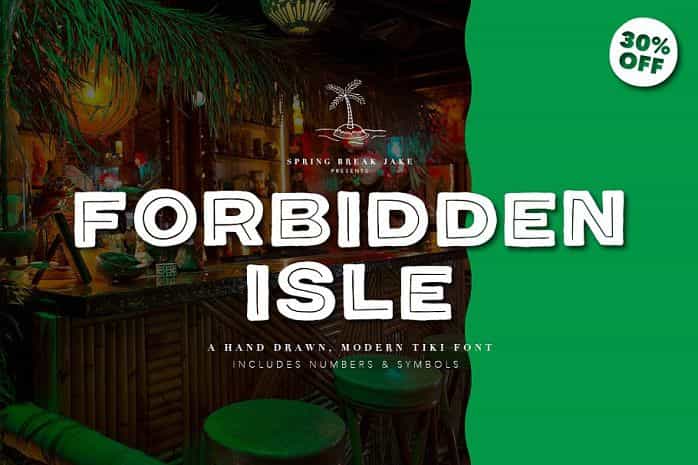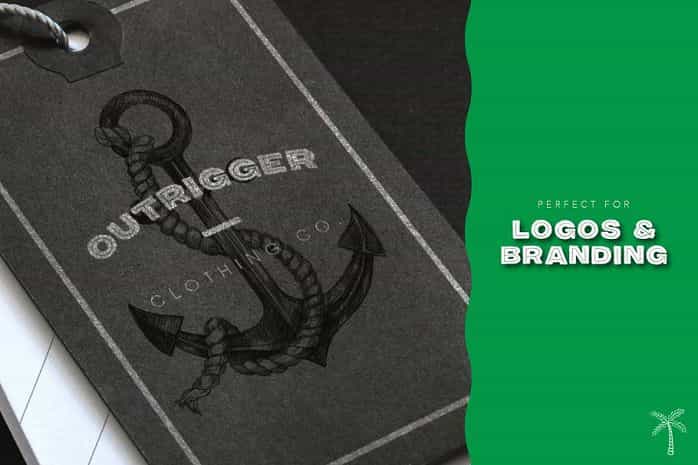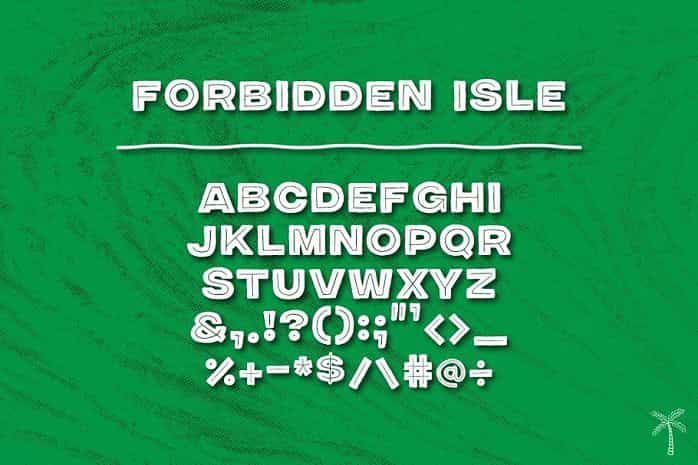
Introducing Forbidden Font. It is the work of Spring Break Jake, and this font is so premium that you can only buy it on creativemarket, but today for free. The Forbidden Isle fonts are based on the old, surfy tiki fonts of the 70s which have been modernized with a cleaner and bolder look. The image of bamboo bars, grass skirts and wild mugs is in the mind.